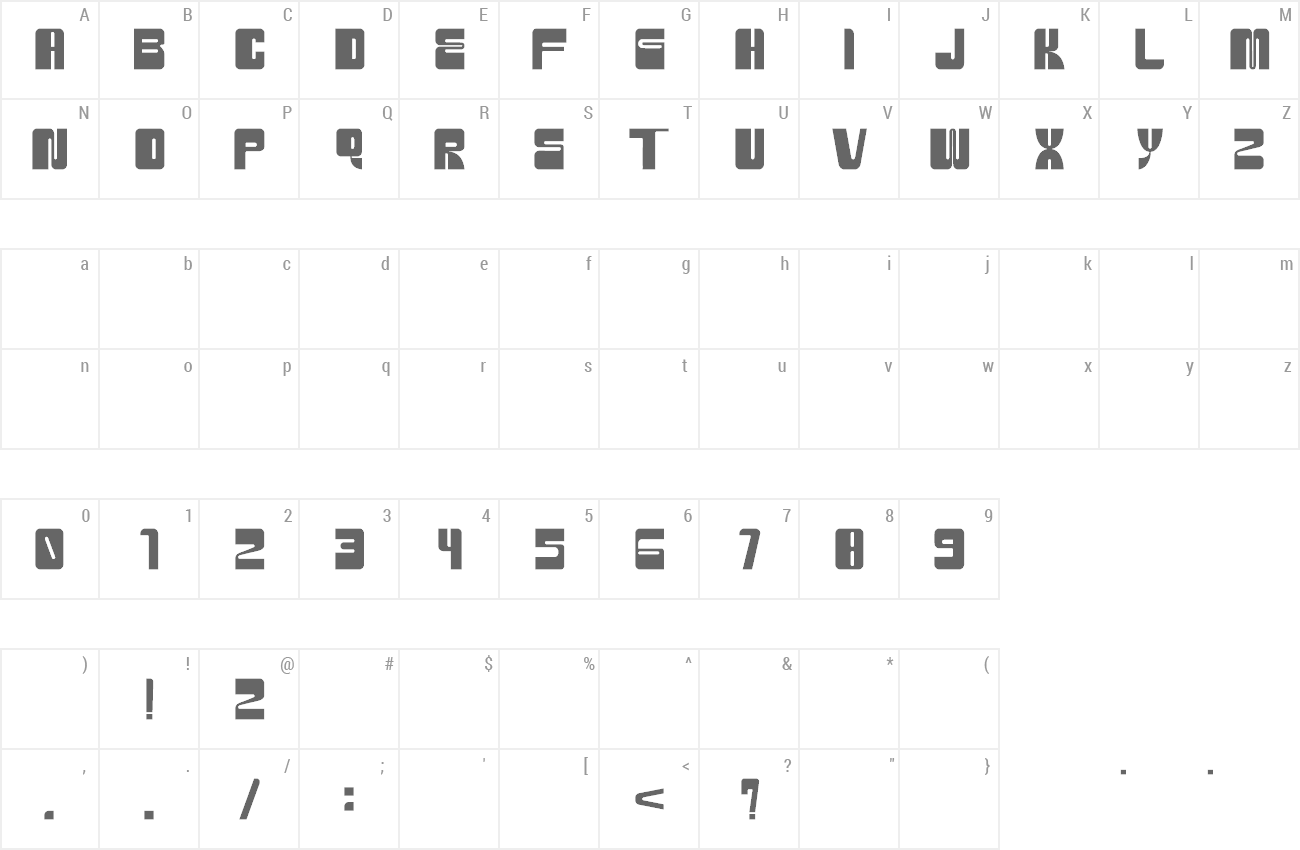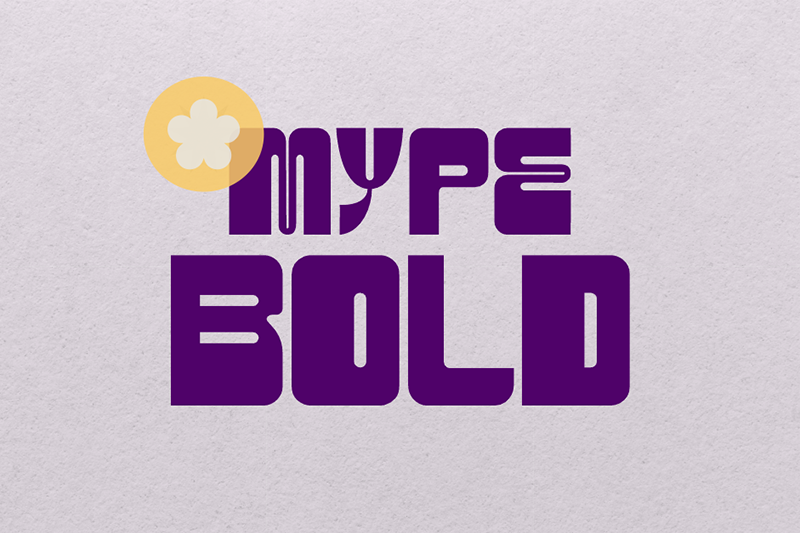
| BOLD MYPE BOLD is a Bold Display Font created by Avif Firdaus. inspired by the traditional Indonesian script that developed on the island of Java. approach to contemporary popular culture. |